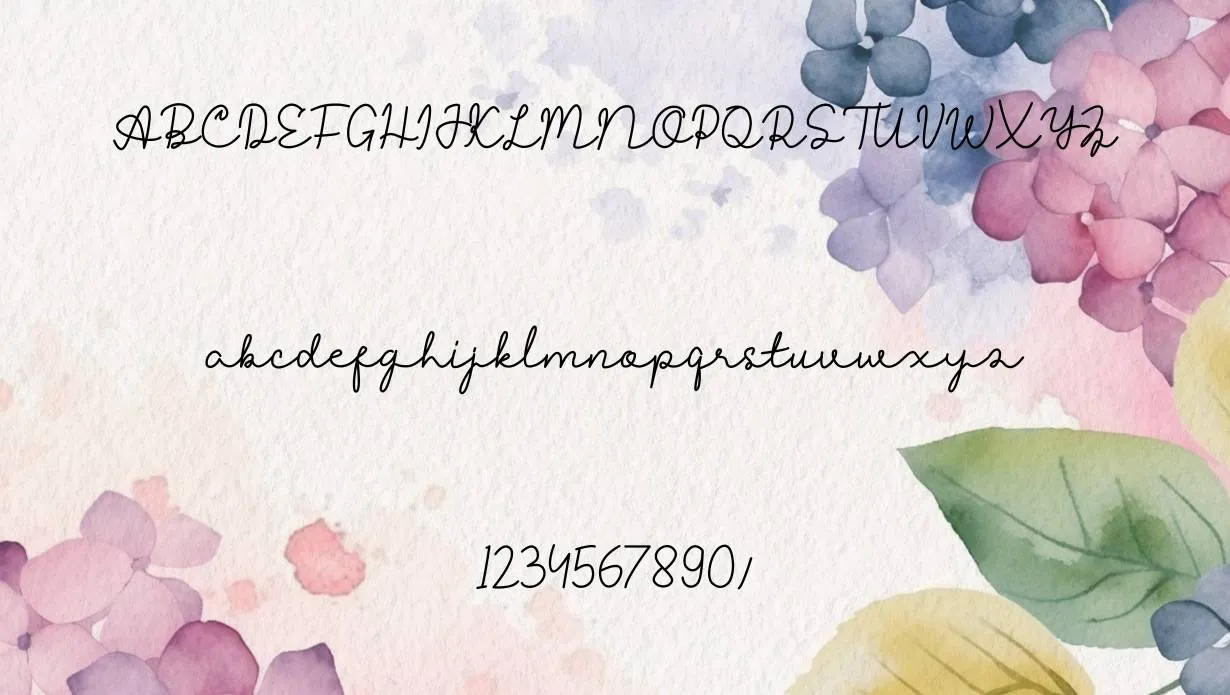
Unleash the exotic and stylish vibe of Reysha Font. Its distinctive flair adds a touch of mystery and allure to your text. Whether you’re designing for a fashion magazine, upscale branding, or any project that demands a sophisticated and unique look.
| Name | Reysha Font |
| Designer | Madatype Studio |
Reysha Font brings a sense of elegance and individuality to your words. Transform your design project into a captivating masterpiece by including this typeface. You can use the amaranth handwritten font independently or harmoniously pair it with other fonts.